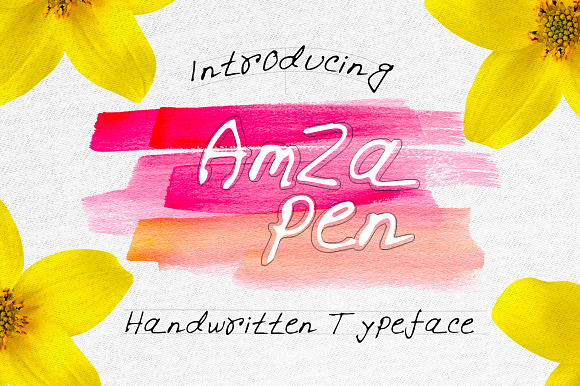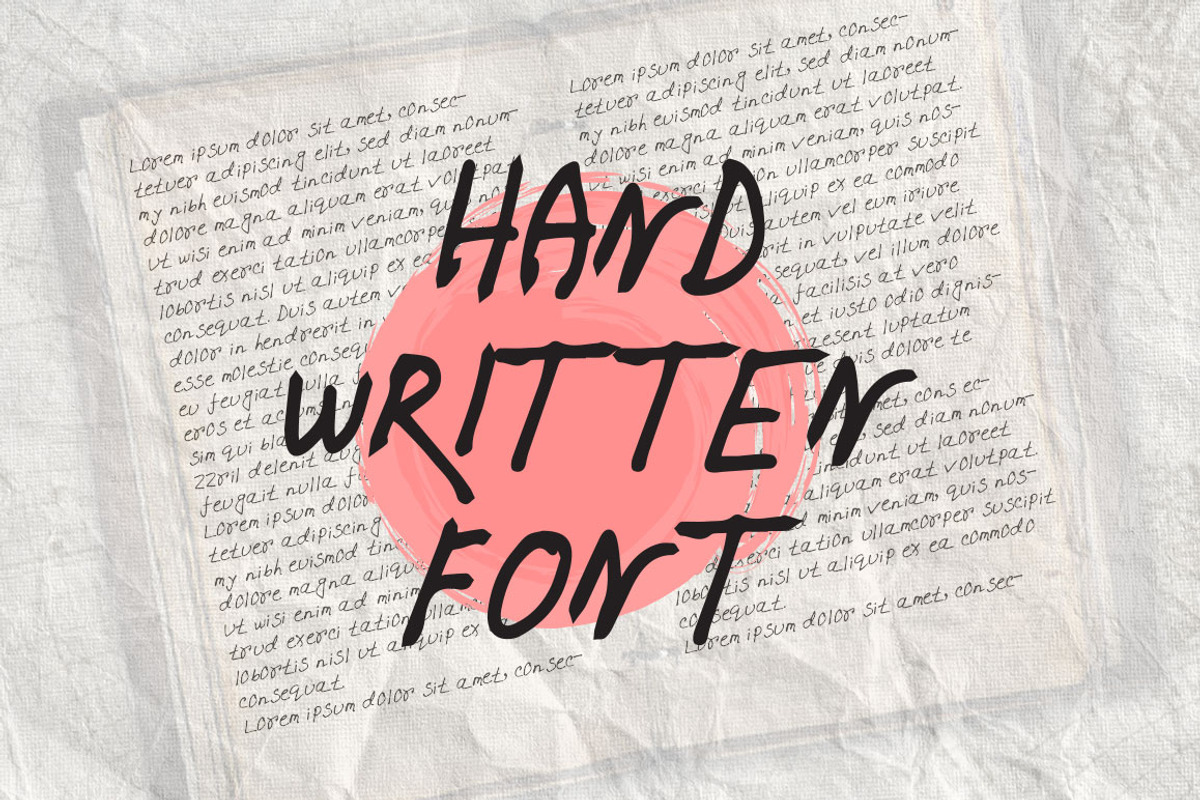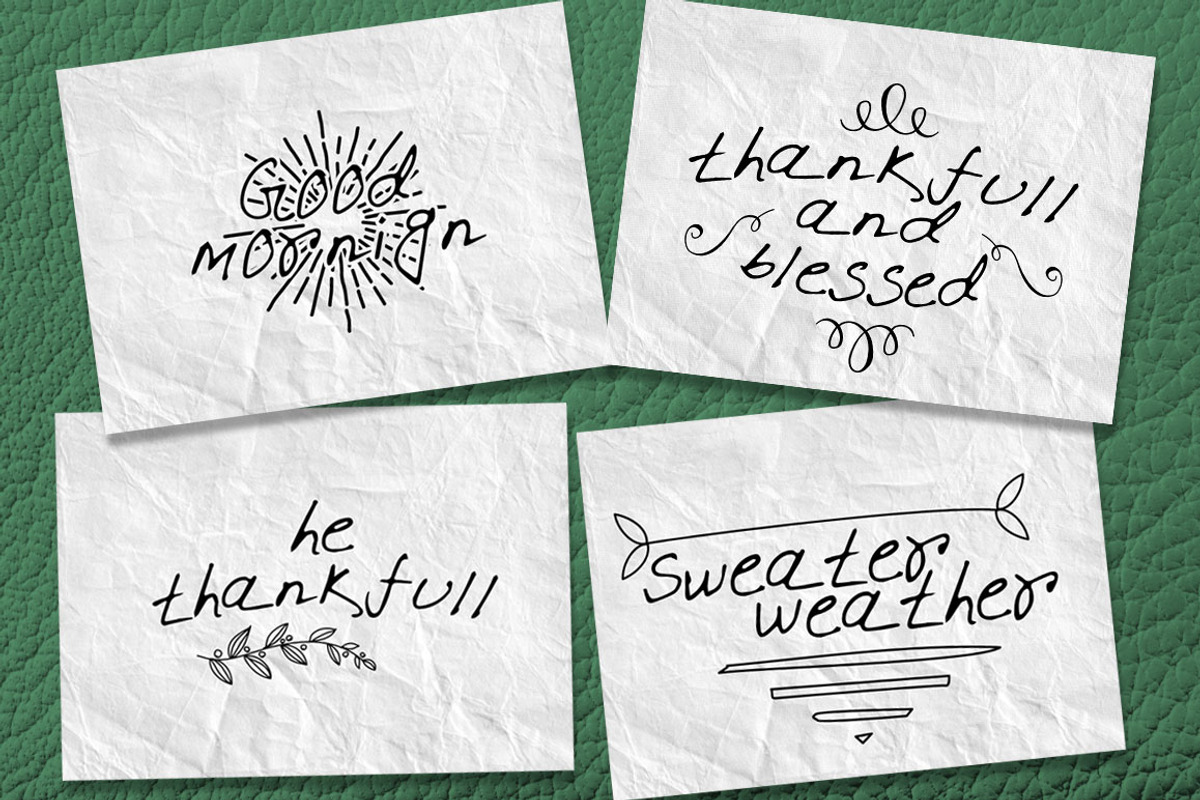
Amza pen writing Font Set
Add a little sparkle to your designs with Amzapenwritting! A clean & classy handy style font set, perfect for creating authentic hand-lettered text quickly & easily.
With exaggerated strokes and an extra bouncy baseline, KumarHandy has an unmistakable charm; perfect for logos, headers, company or personal branding, product packaging, cards & handwritten quotes and chalk board design.
All-Caps Version • Have you ever noticed that script fonts tend to be a bit tricky when it comes to typing in all-caps? That's why I've included a totally separate set of A-Z letters - designed to work in harmony with each other during those moments when you need to hit your caps-lock button and go a bit wild!
Large Glyph Set • Amzapenwritting comes with a large range of glyphs including punctuation, numerals, international language support, ligatures & additional extra glyphs for some lowercase characters.